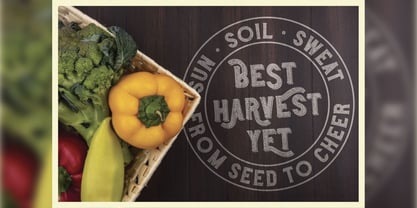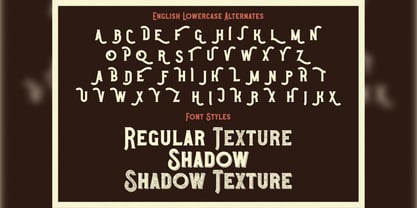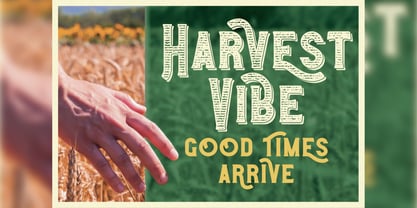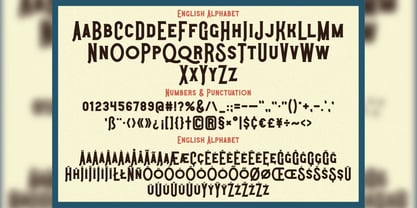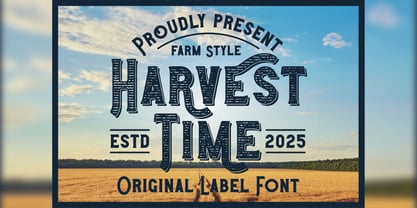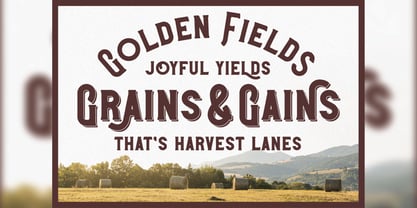
Harvest Time
por Vozzy
A família de fontes Harvest Time foi desenhada por Oleg Voznyy e publicada pela Vozzy. Harvest Time contém 4 estilos e opções de pacote familiar. Saiba mais sobre esta família
• Harvest Time Texture
• Harvest Time Regular
• Harvest Time Shadow
• Harvest Time Texture Shadow
Introducing "Harvest Time," a distinctive font designed specifically for headlines, accent inscriptions, and capturing attention. This versatile typeface features a rich array of additional characters, punctuation marks, and multilingual options, along with numerous alternate characters to enhance your creative projects. Ensure your software supports OpenType features to fully utilize its capabilities. "Harvest Time" will elevate your beautiful designs, making them stand out with its unique style and charm.
Designers: Oleg Voznyy
Fundição: Vozzy